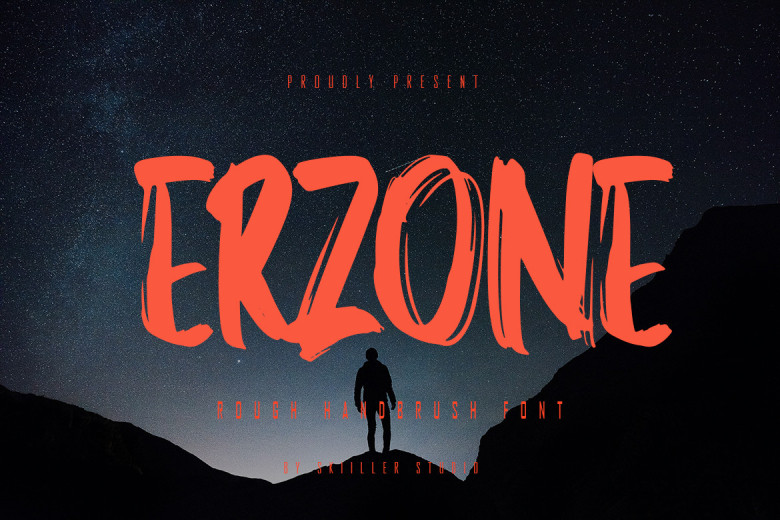
Erzone Font
Erzone Brush Script Font is a digital revival of the typography of natural brushes. Composed in rapid motion using a brush pen, it looks a bit dry and has a strong sense of realism. It is well suited to commercial needs or journal fashion design, and can be utilized in logos, product packaging, headlines, posters, commodities, social media as well as greeting cards.
Erzone Brush Script Font